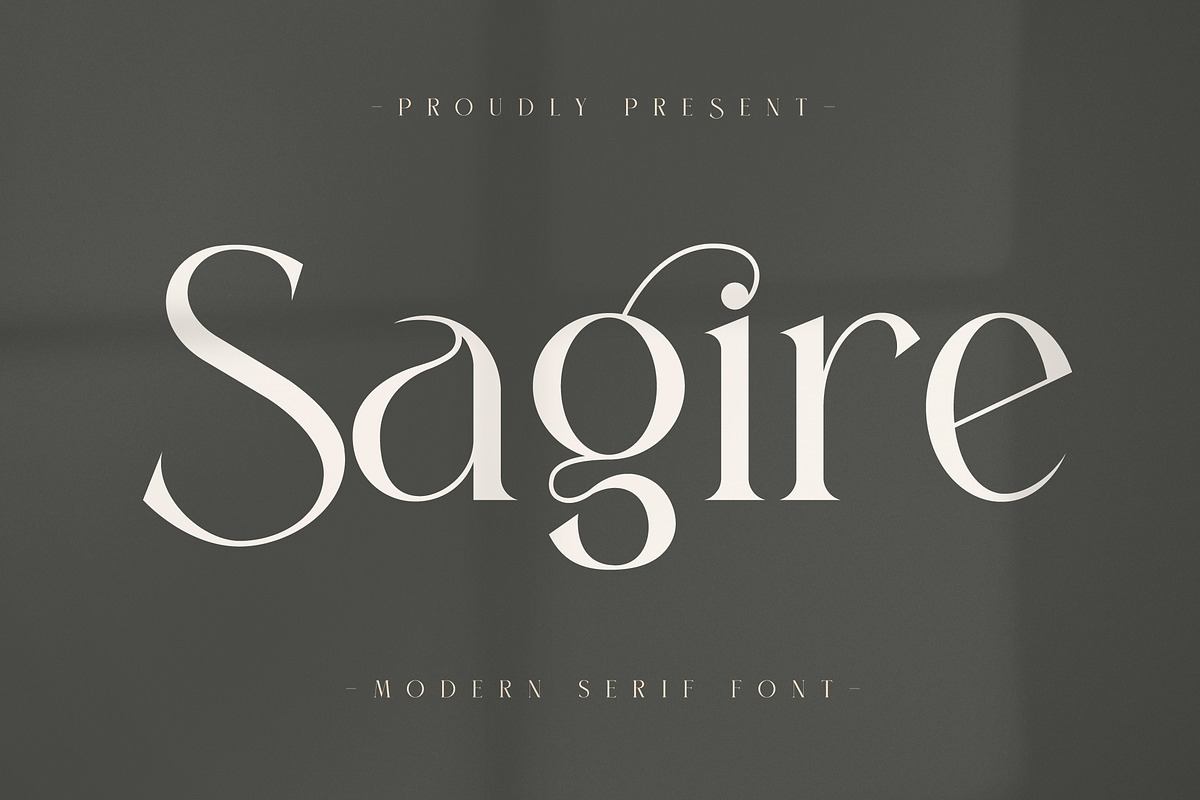
Sagire Modern Serif Font Free Download is a stylish and contemporary typeface that blends timeless serif elegance with modern sophistication. Featuring high contrast strokes, sharp serifs, and refined curves, Sagire is perfect for luxury branding, editorial layouts, packaging design, fashion magazines, and upscale social media content.
Its clean yet distinctive character makes it ideal for both display headlines and refined body text. Whether you're crafting a bold logo or an elegant wedding invite, Sagire adds a polished, professional edge to your typography.